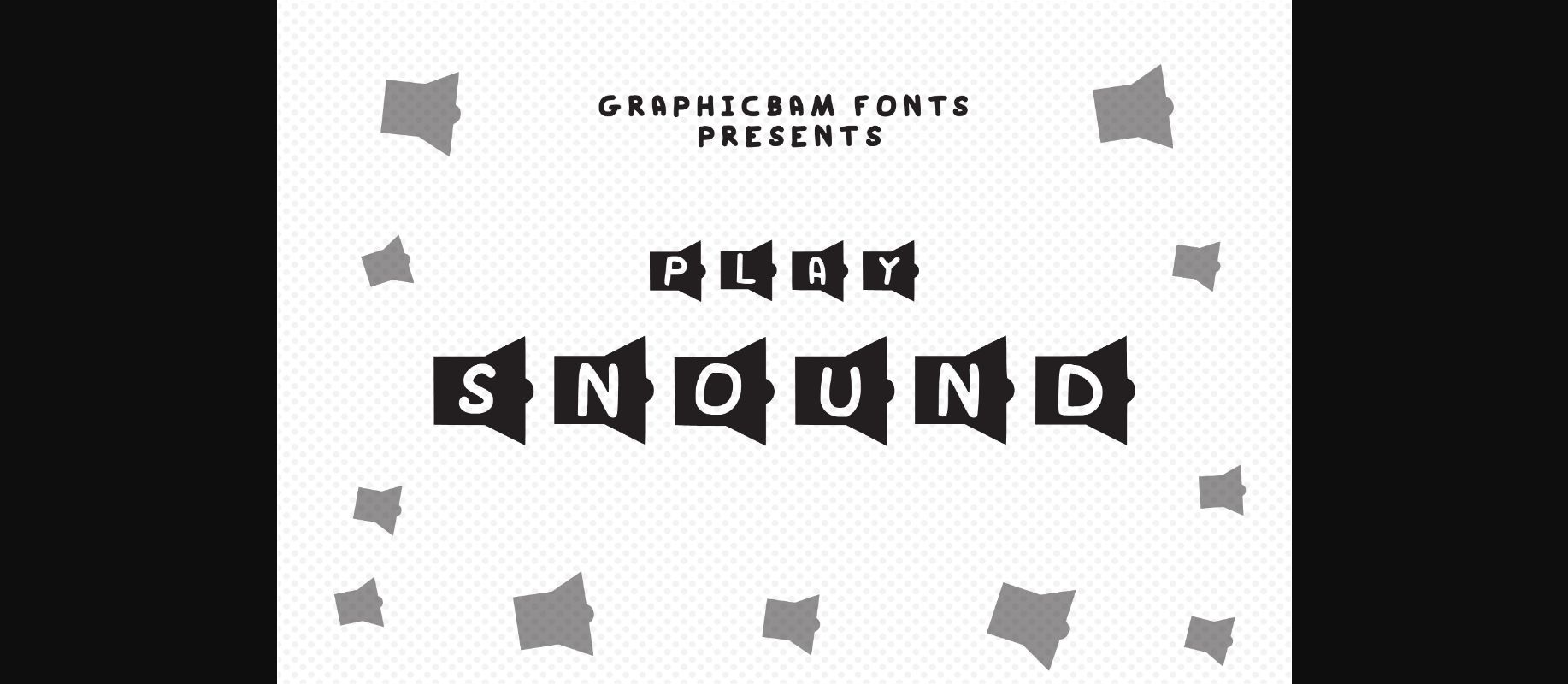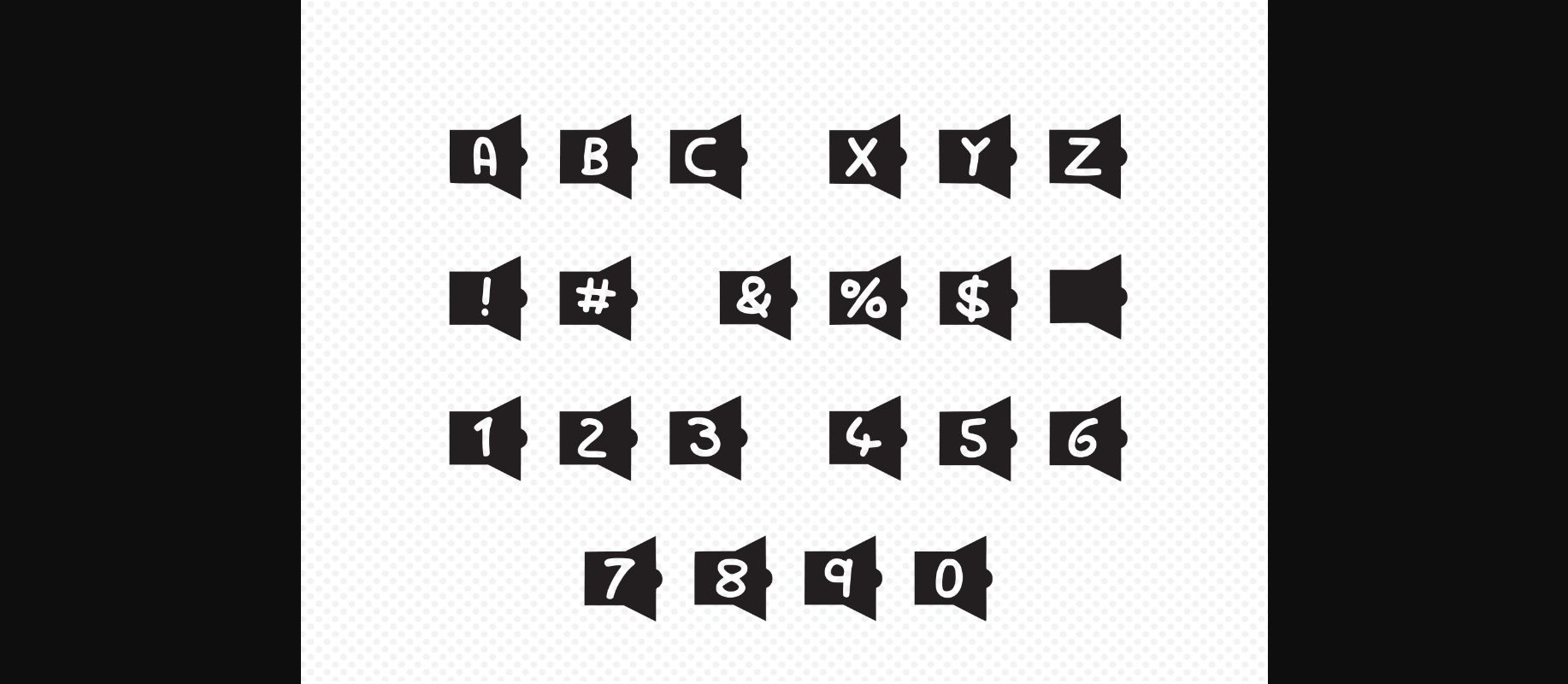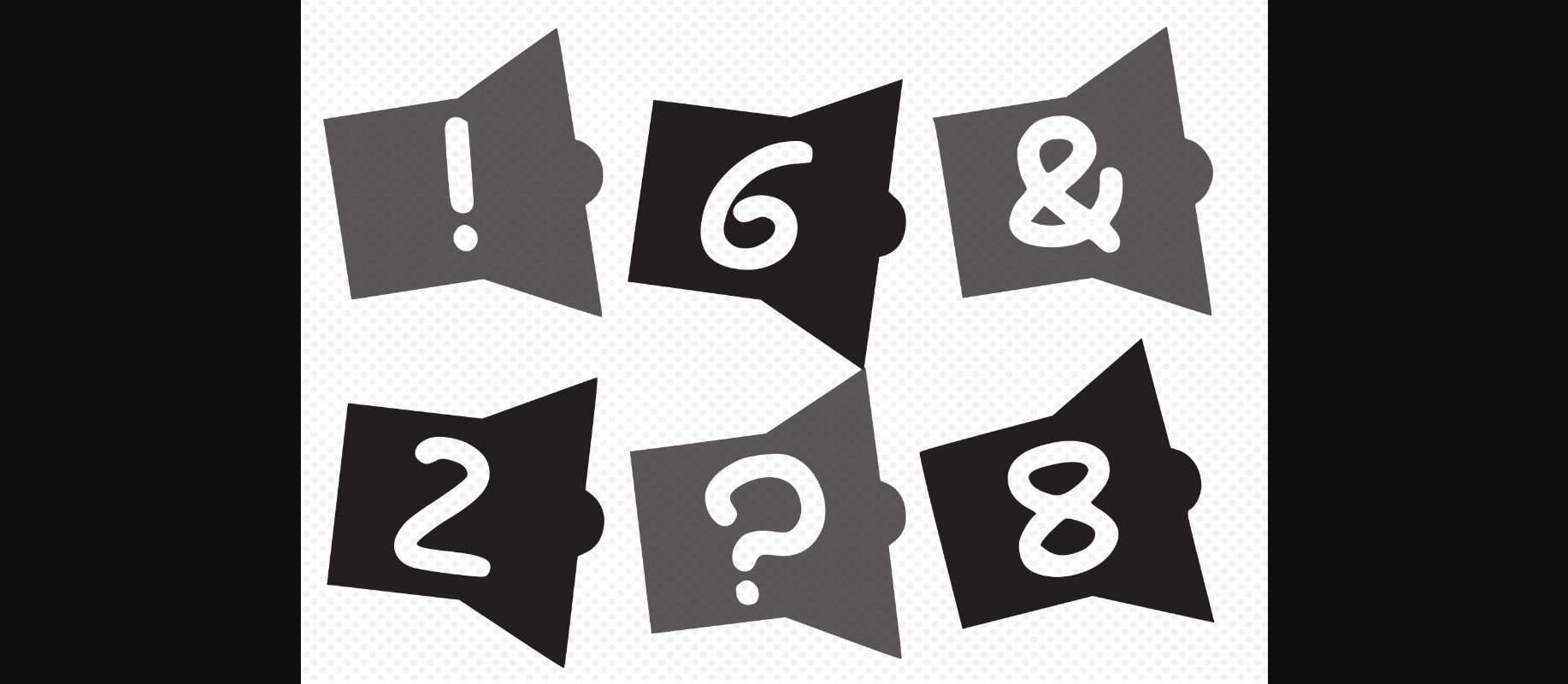
HomeDecorative FontsPlay Sound Font Decorative Fonts Play Sound Font FacebookXPinterestWhatsApp 1 of 5 ... Play Sound Font Poster 2... Play Sound Font Poster 3... Play Sound Font Poster 4... Play Sound Font Poster 5... About Play Sound Font Play Sound is the decorative font that will make any message heard! Use it for covers, banners, product packaging, children’s designs, or anything else related to sound, music, public speaking, and others. DOWNLOAD NOW People also explored Moonlight Serenade Signatured Font Wigglebop Font Leniyha Font Ardiland Smile Galaxy Font Pink Rose Font Amazone Script Font Srikandy Script Font 307 0 TagsPlay Sound Font Previous articlePlay Snail FontNext articleMultiType Lines Ample 2 Font LEAVE A REPLY Cancel reply Comment: Please enter your comment! Name:* Please enter your name here Email:* You have entered an incorrect email address! Please enter your email address here Website: Save my name, email, and website in this browser for the next time I comment. Personal Use Free Darla Personal Use Free Read more about this font Rise of Kingdom Personal Use Free Read more about this font Loving You Personal Use Free Read more about this font Lumber Personal Use Free Read more about this font BLOG Fonts That Capture the Spirit of New York City New York City is more than just a place—it’s an experience, a rhythm, a visual language... 5 Fonts That Will Dominate Design Trends in 2026 Modern Sans-Serif Fonts That Brands Love in 2025 Top 10 Handwritten Fonts That Elevate Your Designs